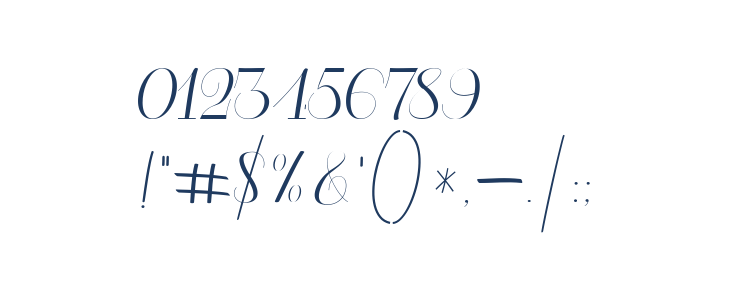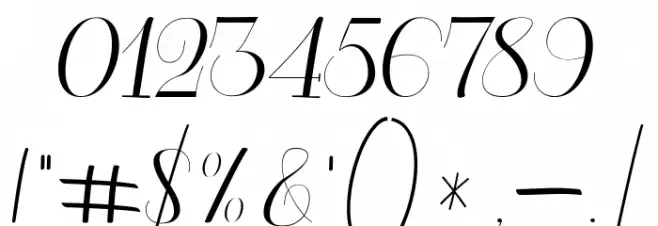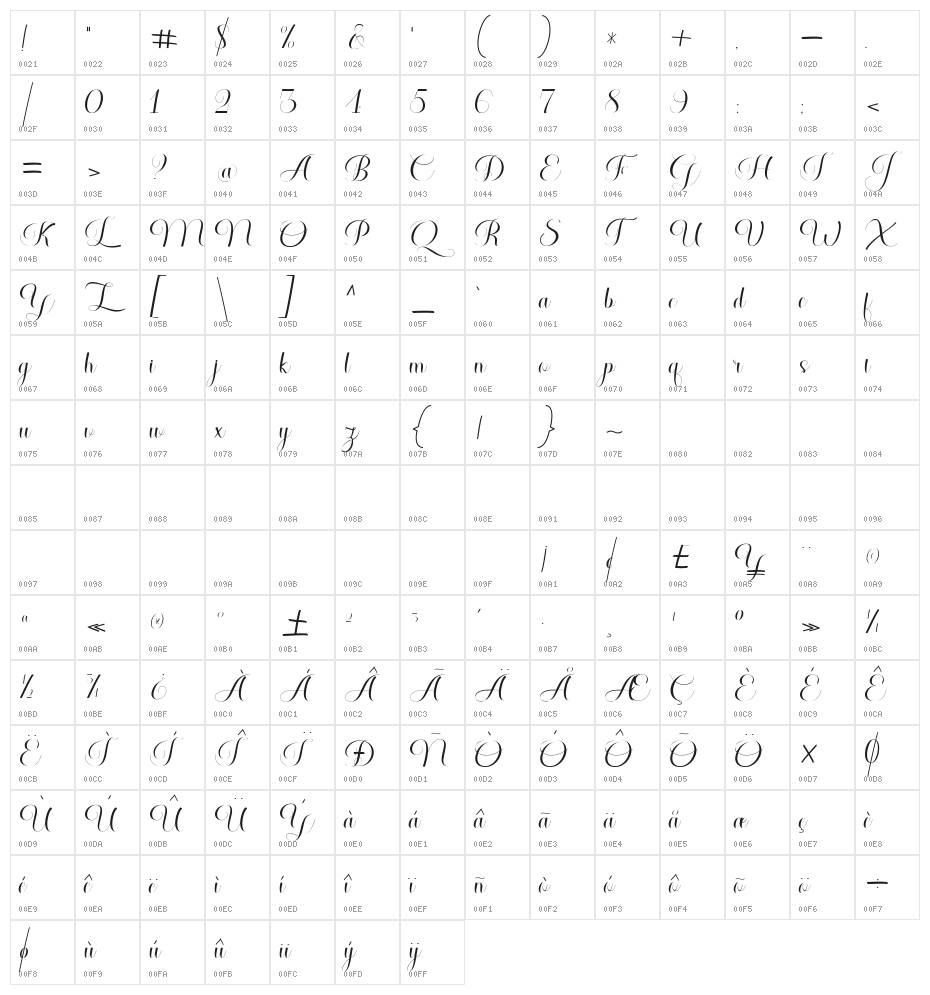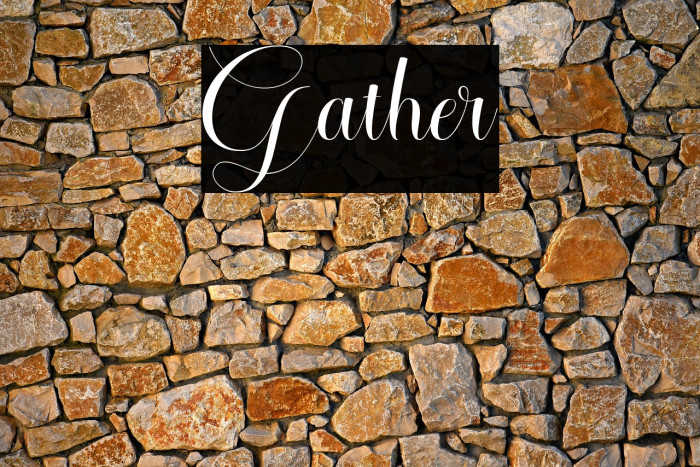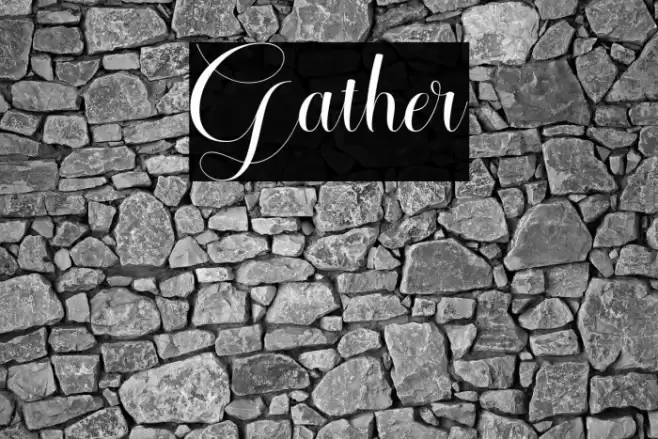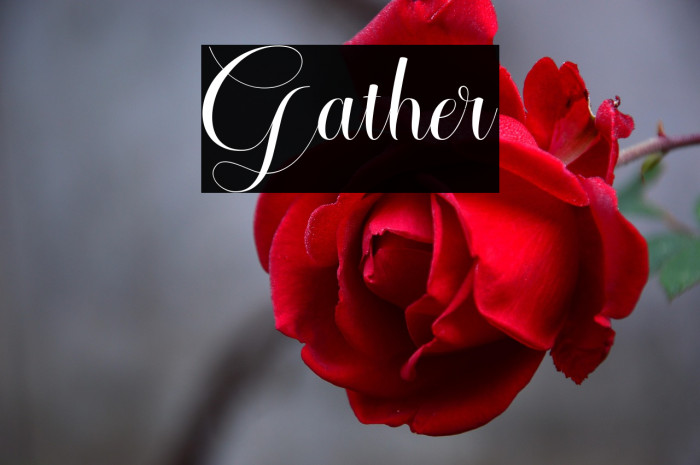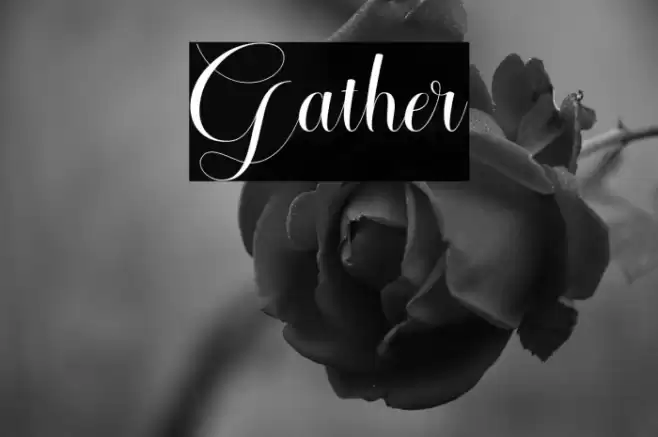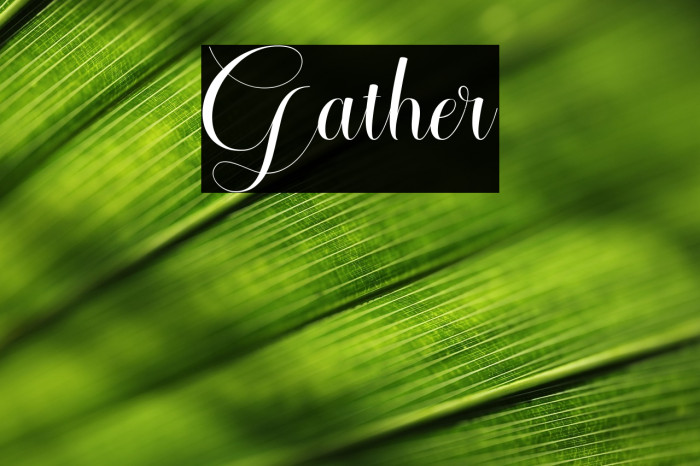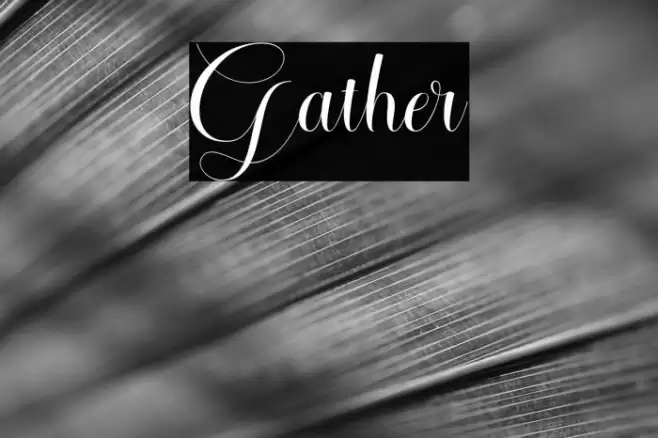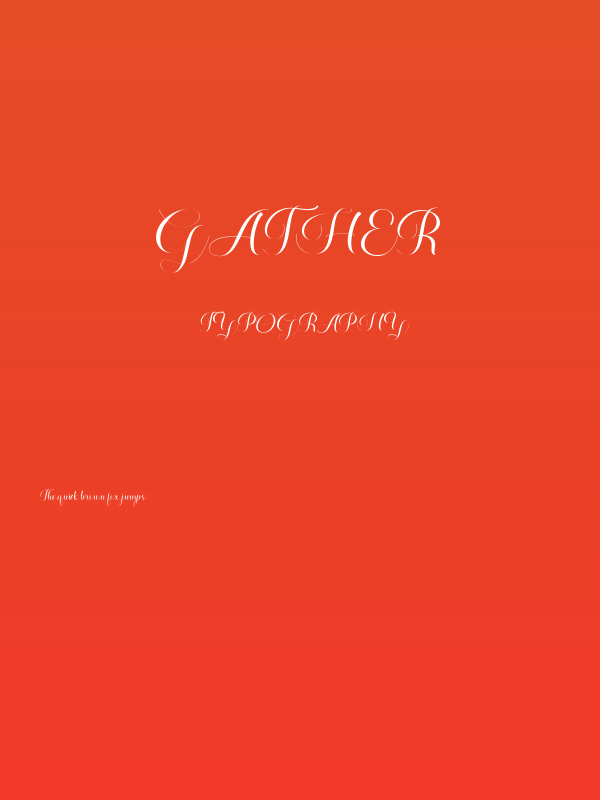
Gather Font
Gather Description
This elegant script font features a flowing, cursive style with high contrast between thick and thin strokes. The uppercase letters are ornate, with sweeping ascenders and descenders that give a sense of movement and grace. The lowercase letters maintain a consistent style, with smooth curves and a slight slant, enhancing readability while preserving the decorative nature. Numbers and special characters are designed to match the overall aesthetic, making this font suitable for formal and sophisticated applications.
| Use Case | Headlines, Invitations, Branding |
| Proposed Projects | Ideal for wedding invitations, elegant branding, luxury product packaging, and formal event programs. |